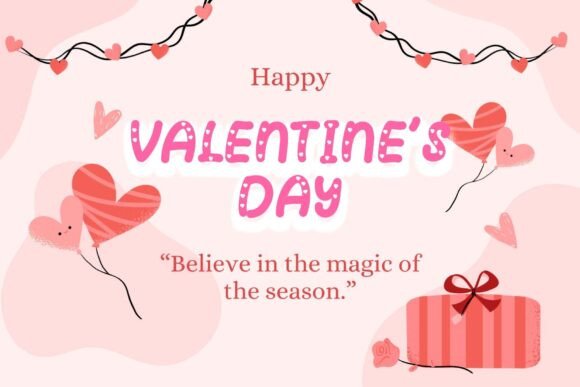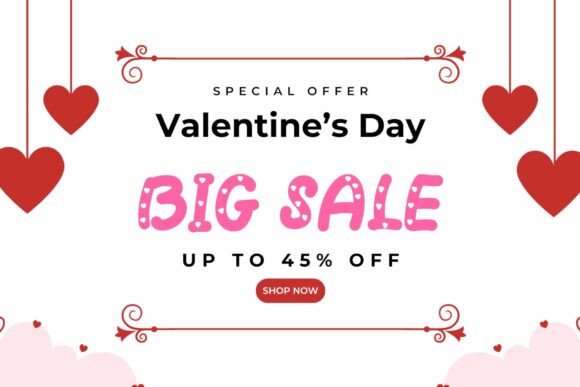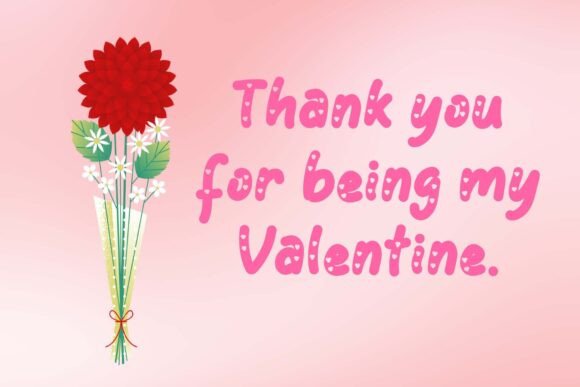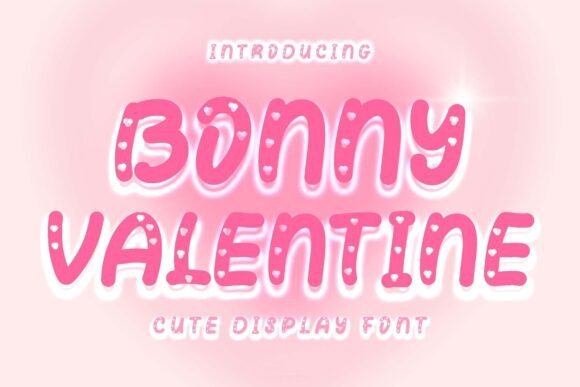
Introduction to Bonny Valentine Font
โ€œBonny Valentineโ€ is a cute and beautiful display font.
It comes with uppercase, lowercase, numbers, punctuation, and multilingual support It is perfect for use on Valentineโ€™s Day, wedding, birthday, banner, poster, print, branding, sticker, poster, Christmas, winter, and more.
Key Features of Bonny Valentine Font